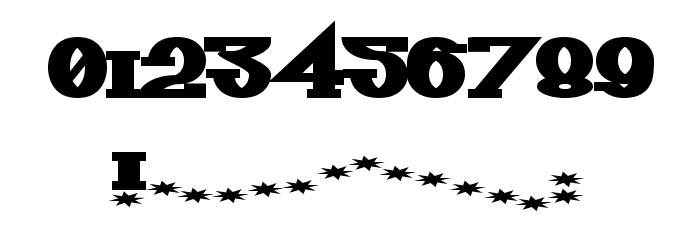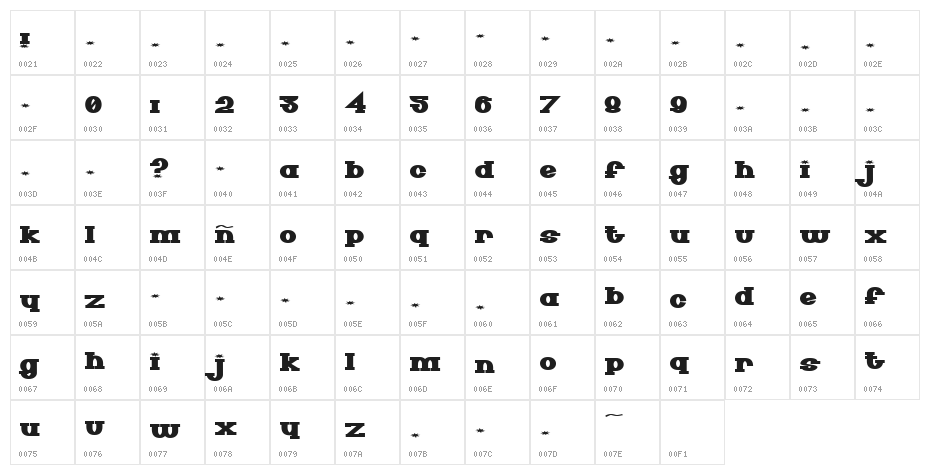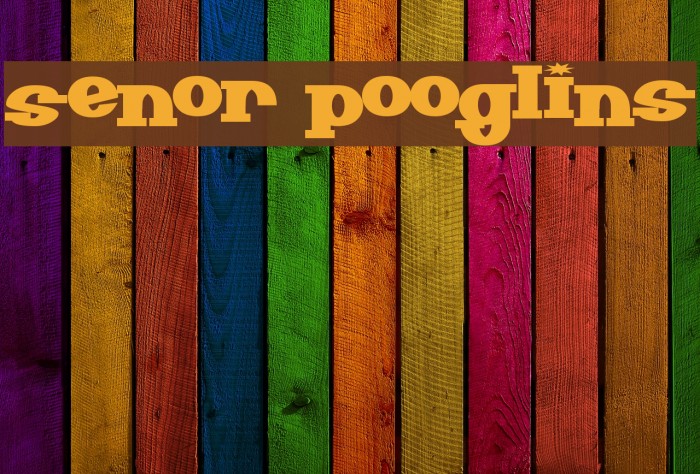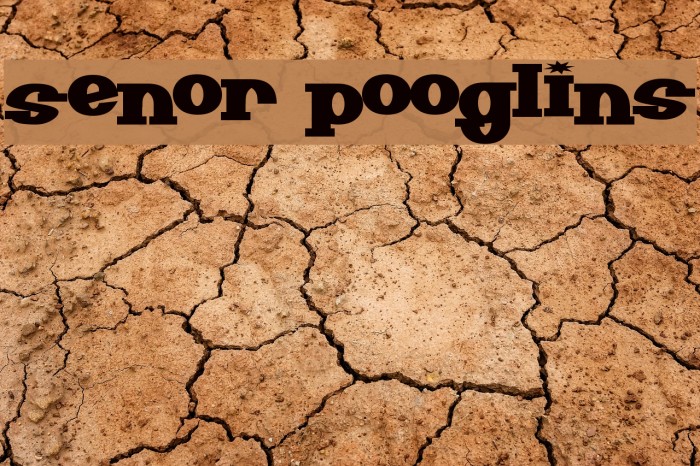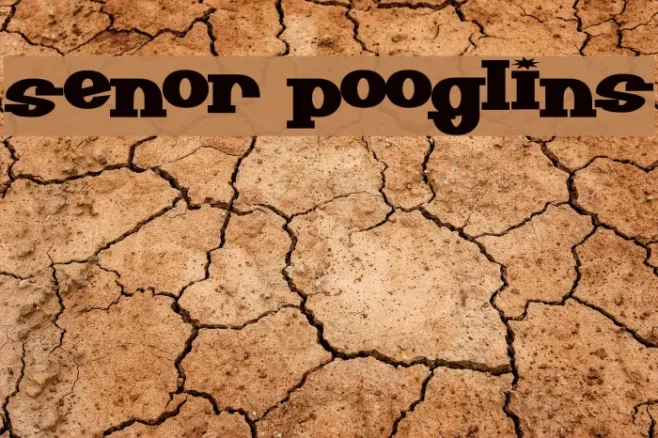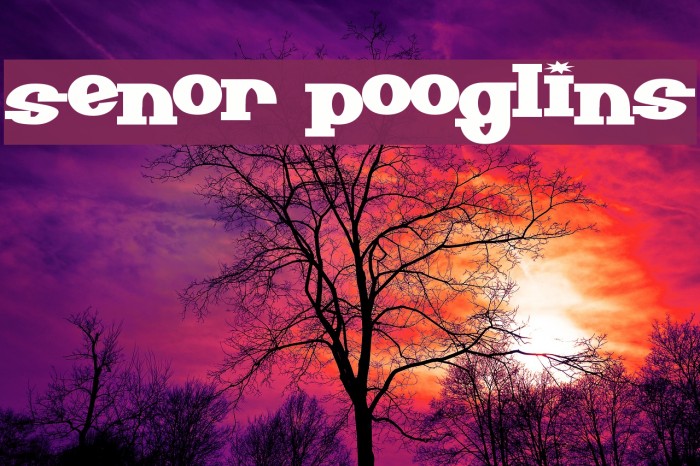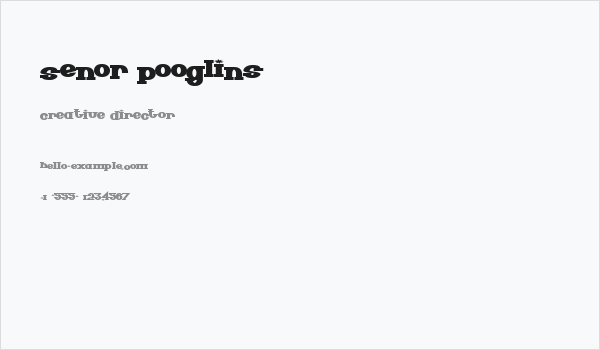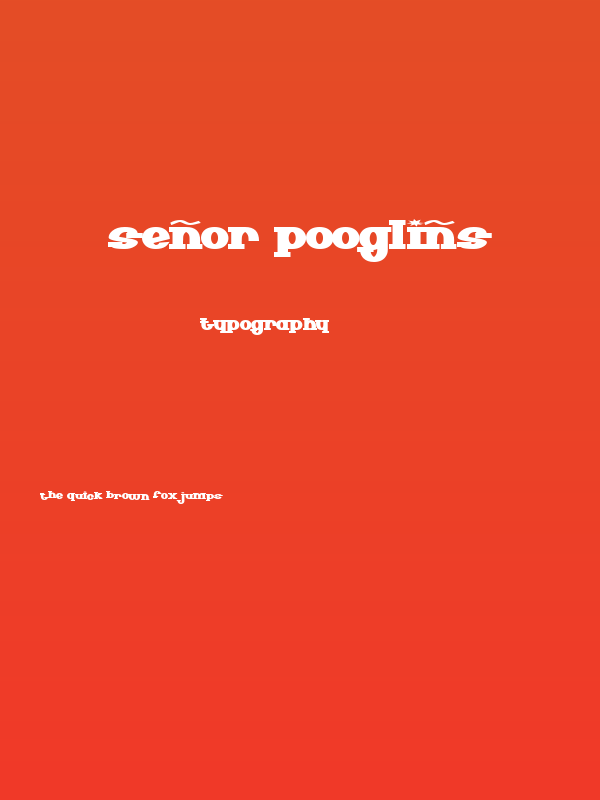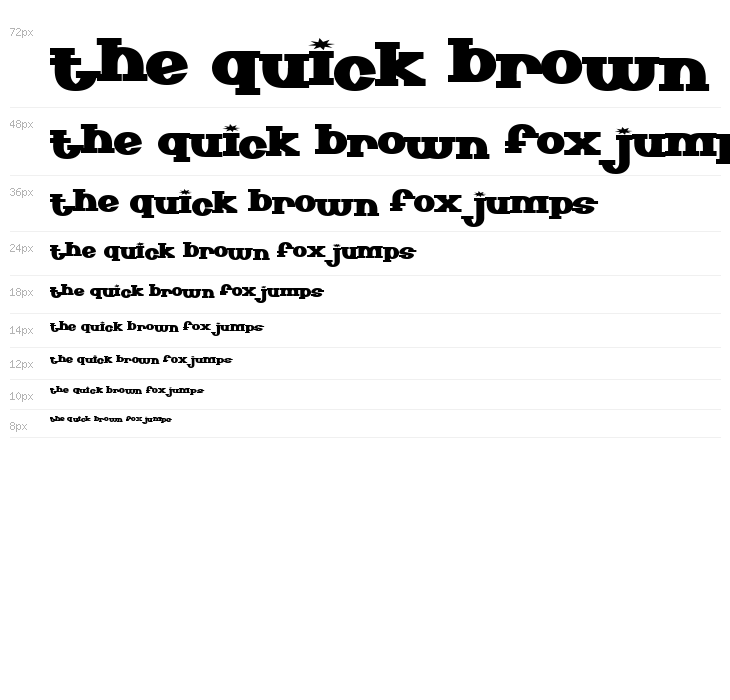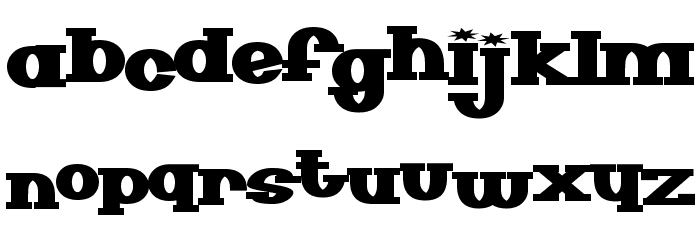
Senor Pooglins Font
Senor Pooglins Description
This font features a bold and playful design with a distinctive decorative flair. The characters are robust and rounded, with a unique star motif integrated into certain letters, adding a whimsical touch. The overall appearance is reminiscent of vintage circus or carnival themes, making it stand out with its bold presence. The uppercase and lowercase letters maintain a consistent style, while the numbers and special characters follow suit with the same decorative elements. This font is ideal for projects that require a fun and eye-catching aesthetic.
| Overall Style | Vintage, Decorative |
| Use Case | Headlines, Posters, Logos |
| Proposed Projects | Perfect for posters, event flyers, children's book covers, and any design needing a whimsical, eye-catching font. |